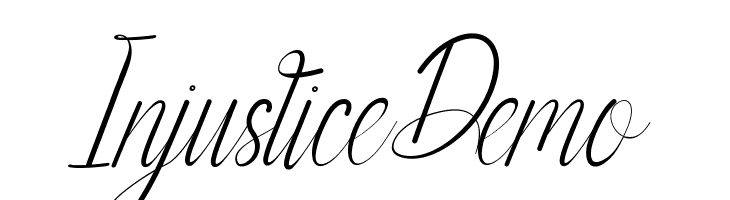
A refined script font with elegant, flowing letters and calligraphic style.
An elegant script font with flowing, cursive letters and a classic style.